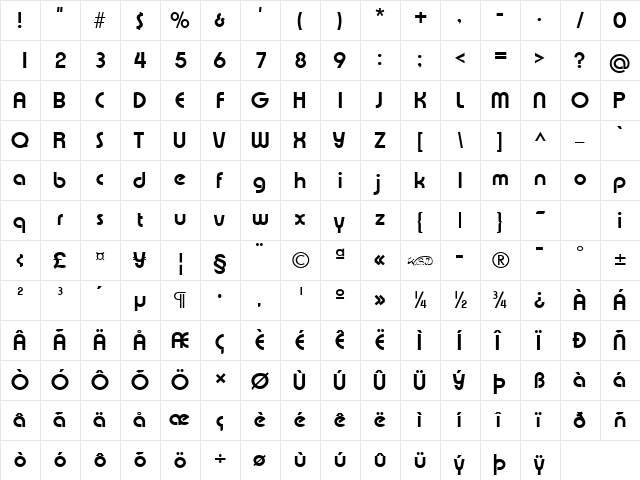
Xpressive Bold Font Preview
Xpressive Bold
Xpressive Bold Font Details
Design Context for Xpressive Typeface
Xpressive is a composed and adaptable typeface that performs quietly and consistently across a wide range of design contexts. The heavy weight commands attention and anchors typographic hierarchies.